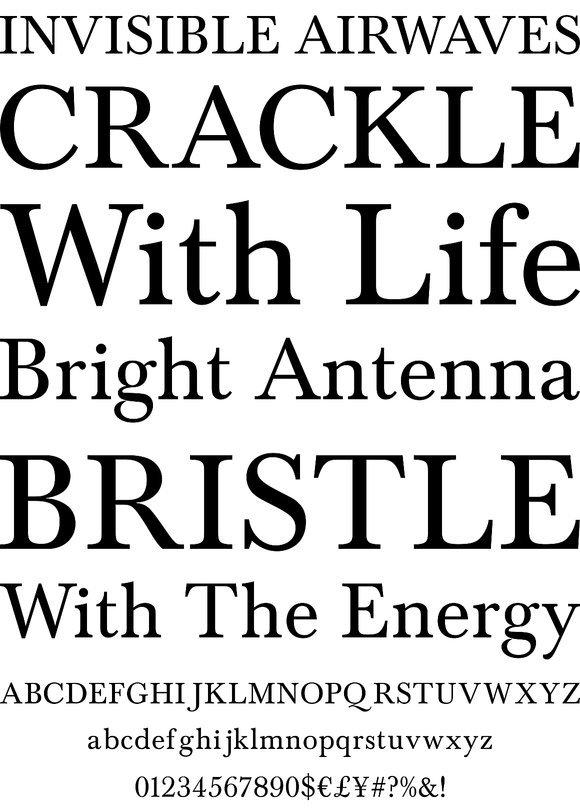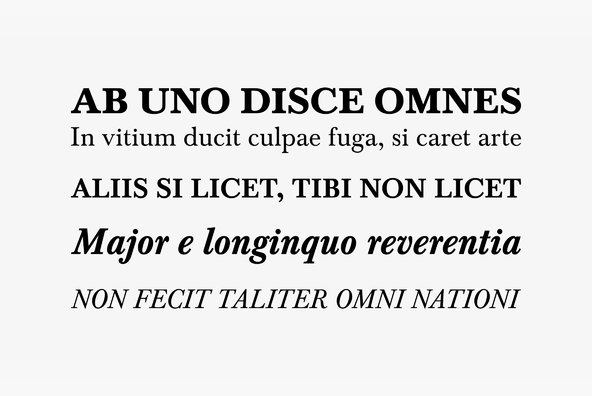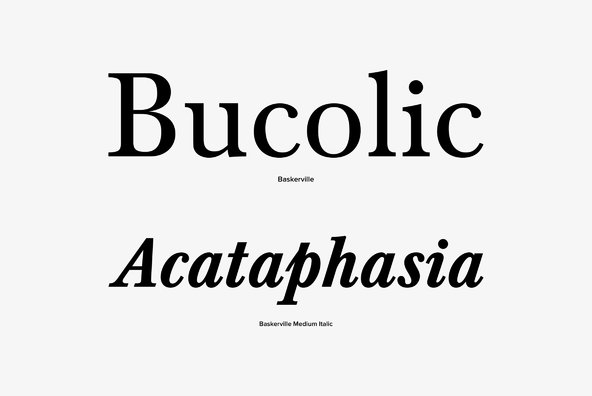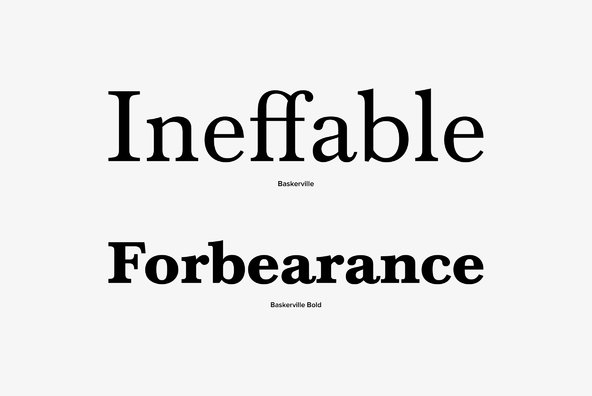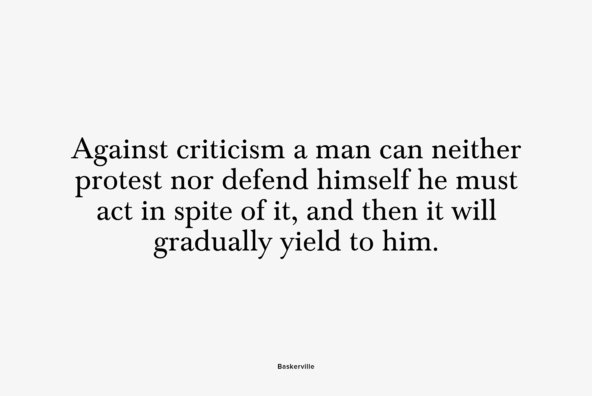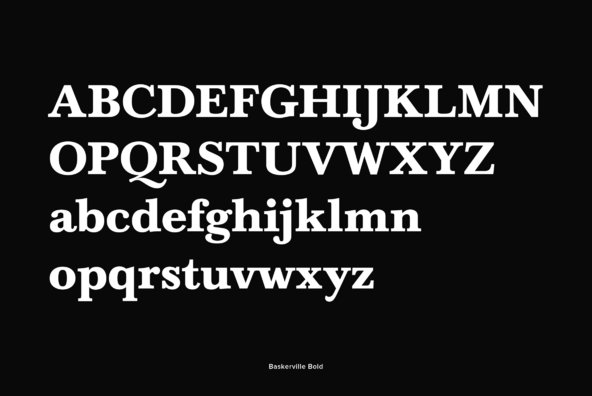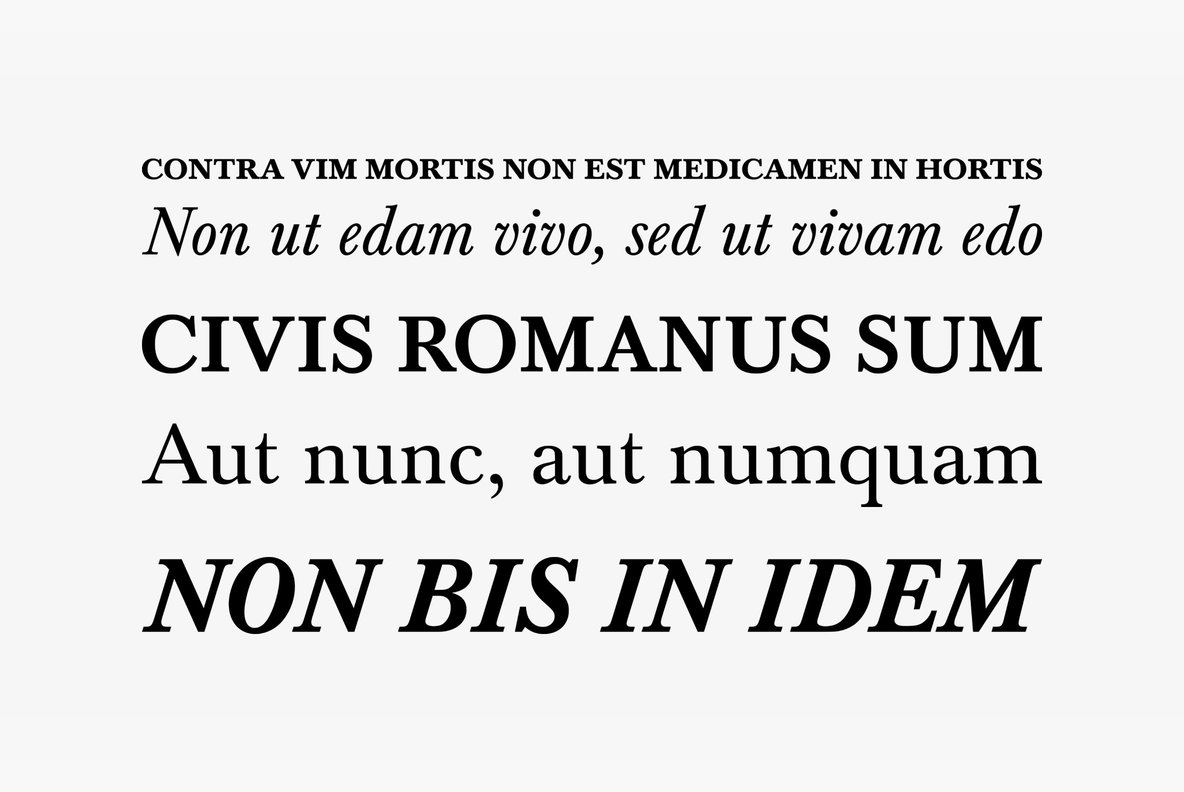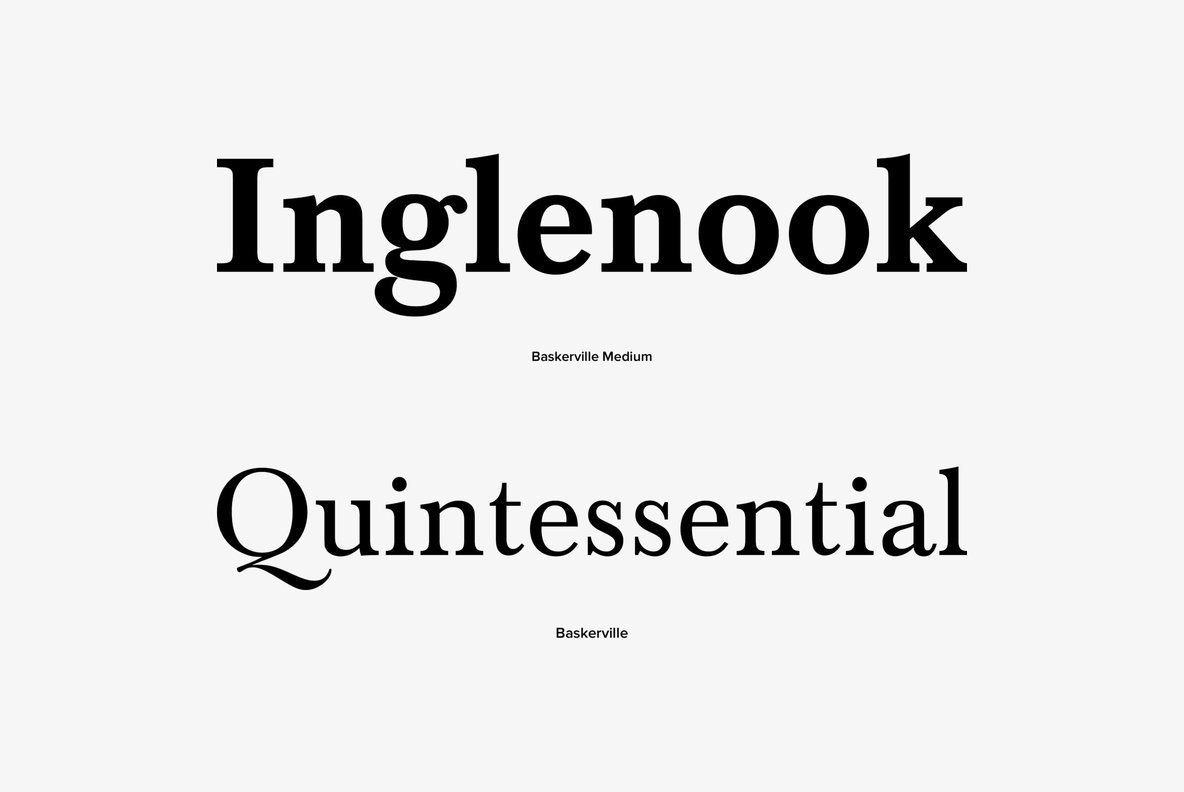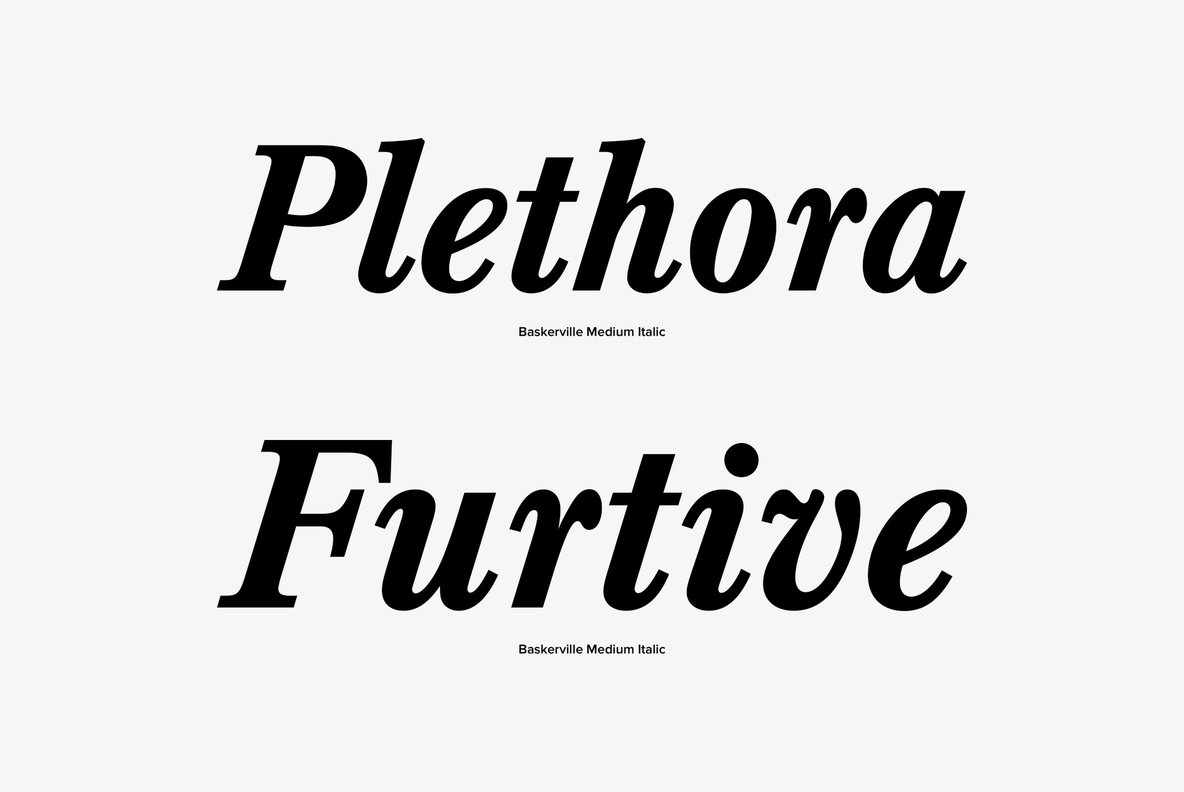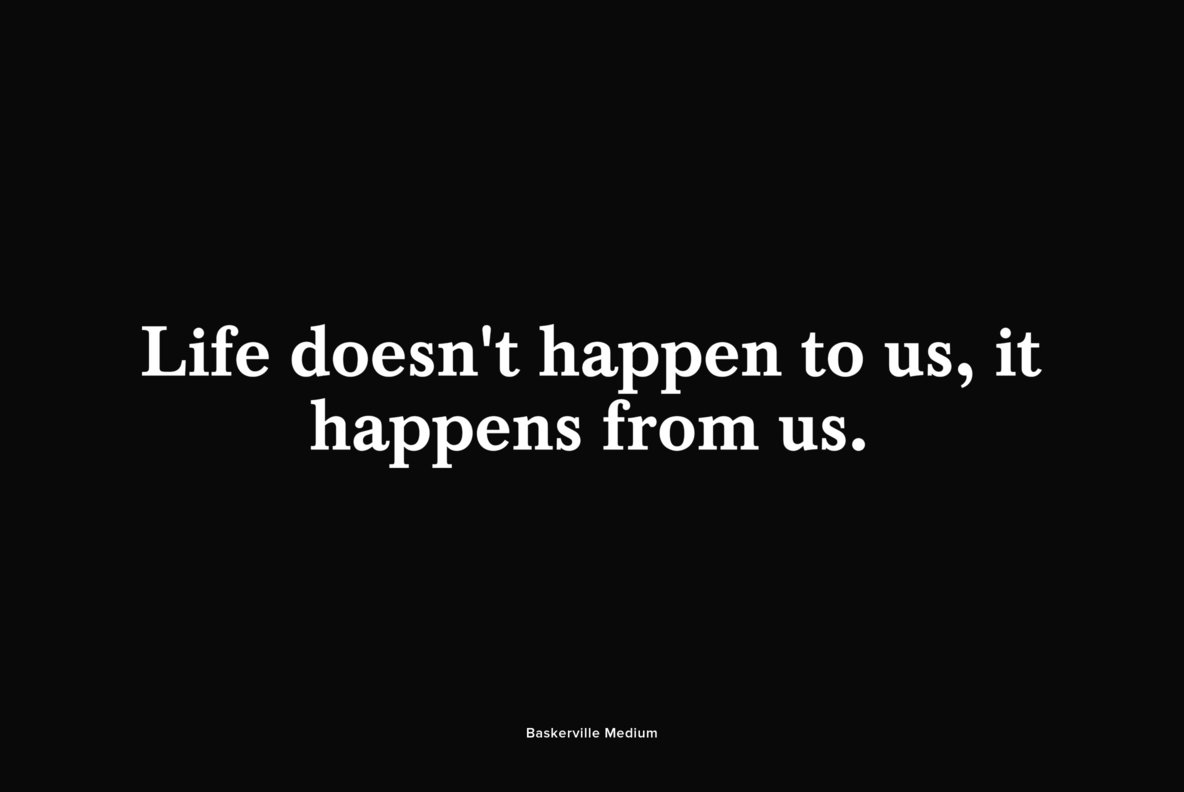
Baskerville
Baskerville Handcut is a classic serif typeface, designed in 1961 by Yelena Tzaregorodtseva. Delivered in opentype format, it contains support for West, East, Turkish, Baltic, Romanian character sets.